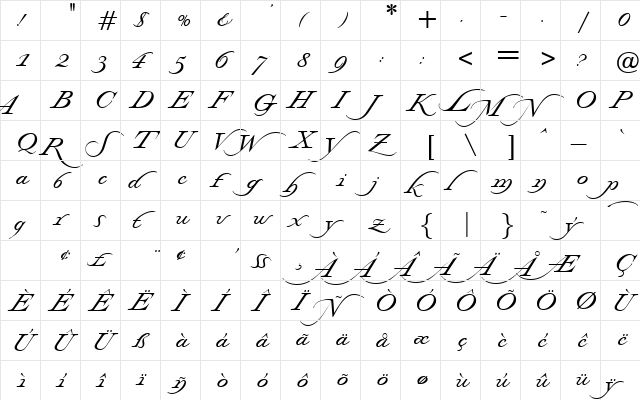
Stockwell Regular
Design Context for Stockwell Typeface
Stockwell is a composed and adaptable typeface that performs quietly and consistently across a wide range of design contexts.
Pro Tip: Pair Stockwell with a font of contrasting weight or personality to build a more expressive typographic hierarchy.